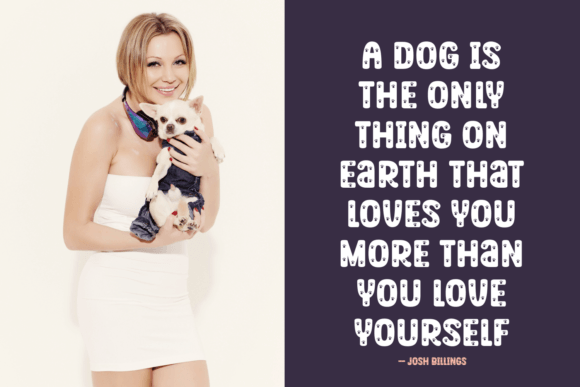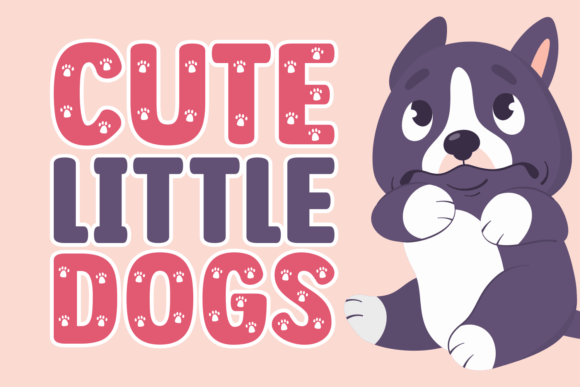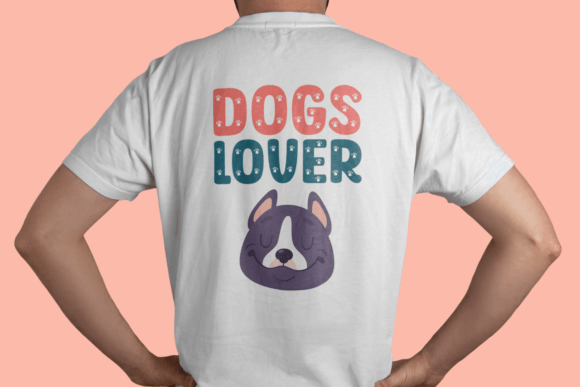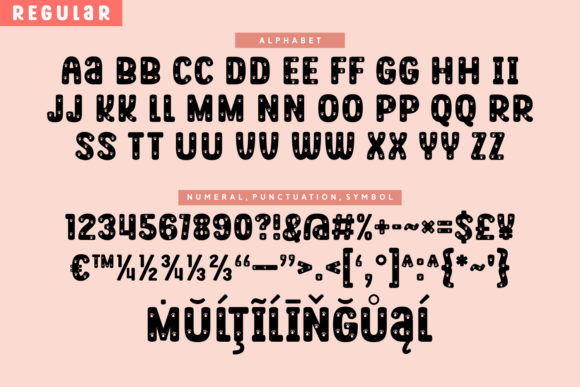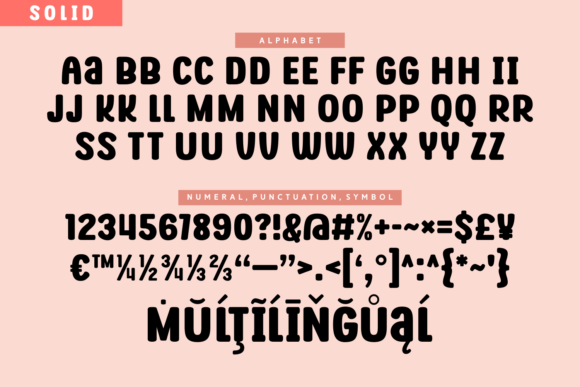
Good Dogs Font: The Fun and Cute Font for Creative Projects
Are you tired of using the same old fonts for your design projects? Look no further than Good Dogs Font, a fun, cute, and smooth font that’s perfect for creating eye-catching logotypes, stickers, kids’ signs, and other lettering projects. With its unique combination possibilities and PUA encoding, Good Dogs Font is a must-have for designers and crafters looking to add a touch of personality to their work.
What Makes Good Dogs Font So Special?
Good Dogs Font is more than just a font – it’s a creative tool that can help you bring your ideas to life. Here are just a few reasons why Good Dogs Font stands out from the crowd:
- Fun and Cute: Good Dogs Font is designed to be fun and cute, making it perfect for projects that require a playful touch.
- Smooth: The font features smooth lines and curves, giving it a professional and polished look.
- Lots of Combination Possibilities: With Good Dogs Font, you can create unique and interesting combinations of letters and glyphs to add visual interest to your projects.
Uses for Good Dogs Font
Good Dogs Font is versatile and can be used for a wide range of projects, including:
- Logotypes: Create custom logotypes that showcase your brand’s personality and style.
- Stickers: Design fun and colorful stickers that kids and adults will love.
- Kids’ Signs: Create eye-catching signs for kids’ parties, events, and activities.
- Lettering Projects: Use Good Dogs Font to add a touch of personality to your lettering projects, such as quotes, posters, and more.
Benefits of Using Good Dogs Font
Here are just a few benefits of using Good Dogs Font in your design projects:
- Customization: Good Dogs Font offers lots of combination possibilities, allowing you to customize your projects to fit your style.
- Time-Saving: The font’s smooth lines and curves make it easy to read and work with, saving you time and effort.
- Unique Look: Good Dogs Font has a unique and playful look that will set your projects apart from the crowd.
Tips for Getting the Most Out of Good Dogs Font
Here are a few tips for getting the most out of Good Dogs Font:
- Experiment with Combinations: Try out different combinations of letters and glyphs to create unique and interesting effects.
- Use it with Other Fonts: Pair Good Dogs Font with other fonts to create visually interesting and dynamic text.
- Play with Colors: Use Good Dogs Font with bright and bold colors to add a pop of personality to your projects.
- Have Fun: Most importantly, have fun with Good Dogs Font! It’s a playful font that’s meant to bring joy and creativity to your projects.